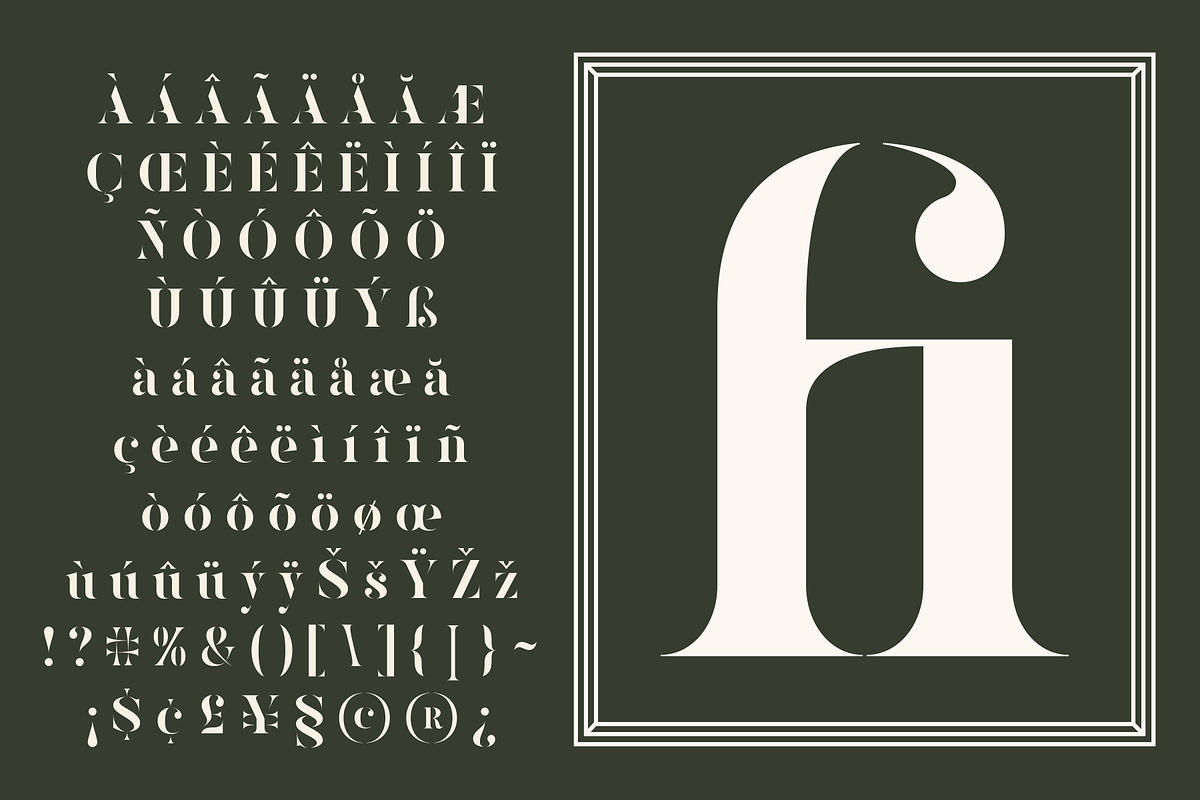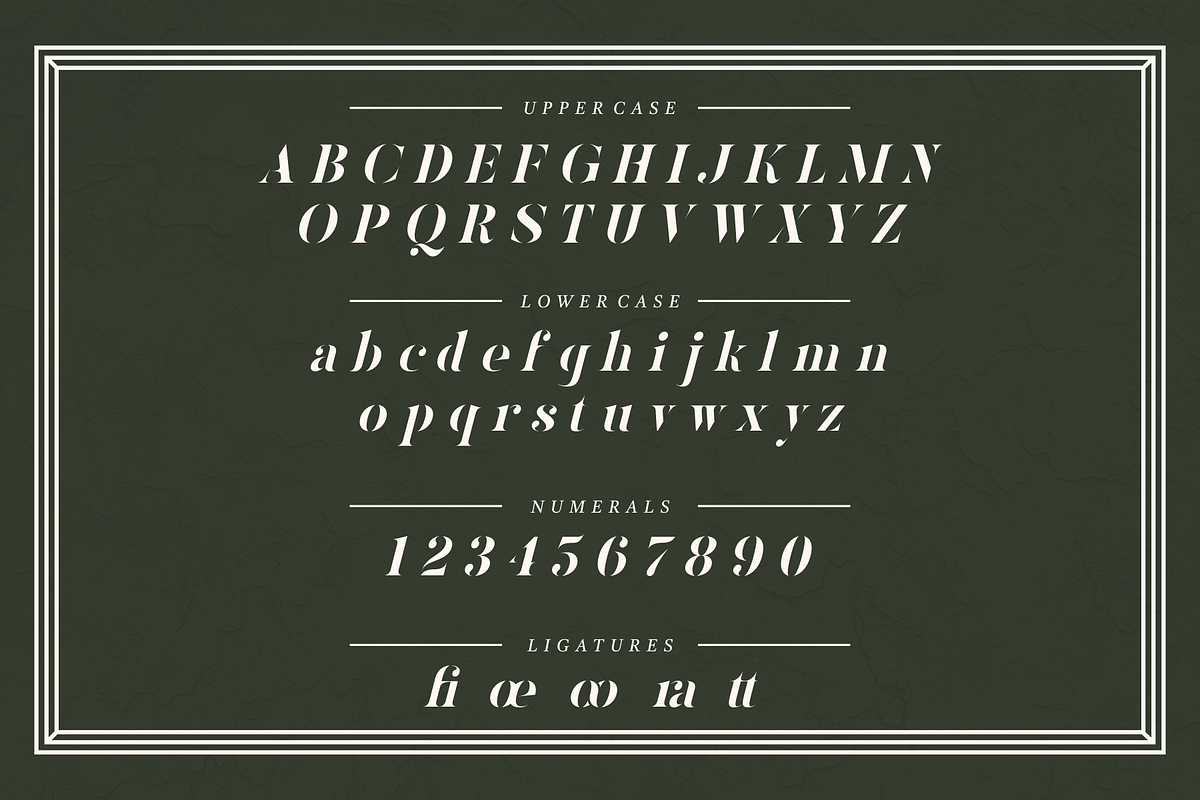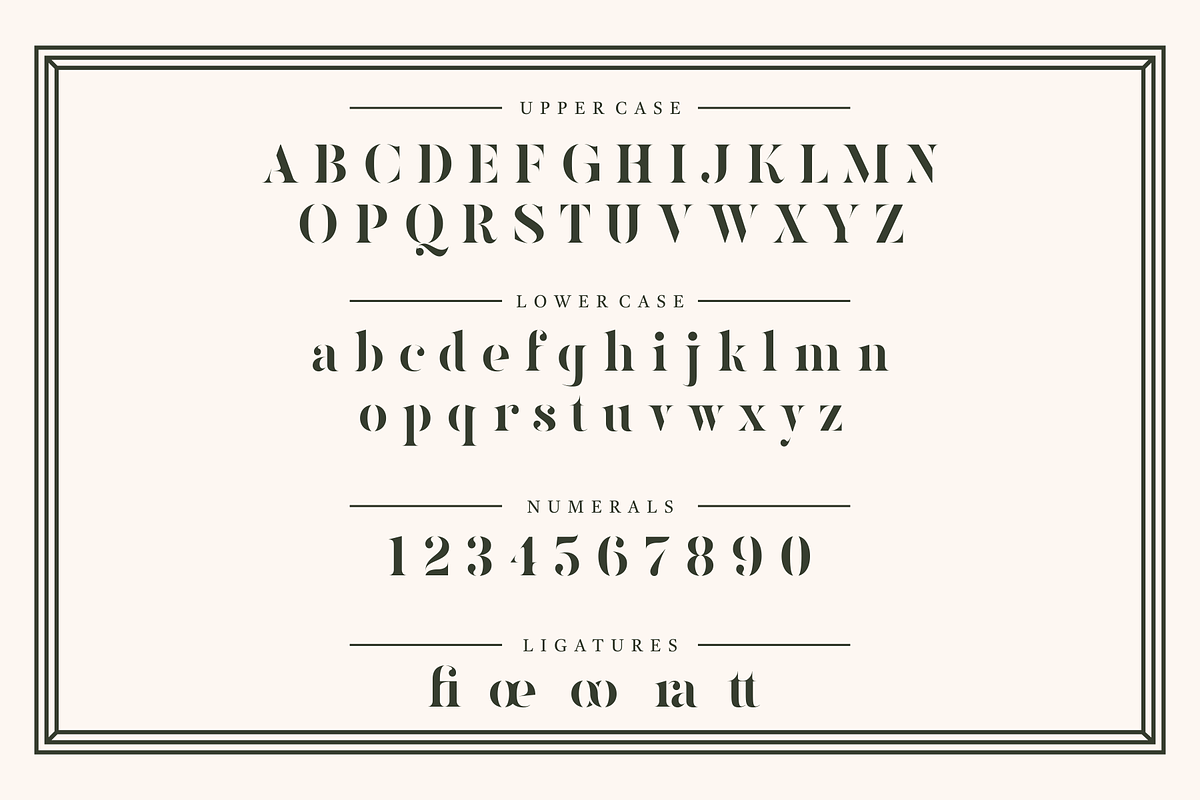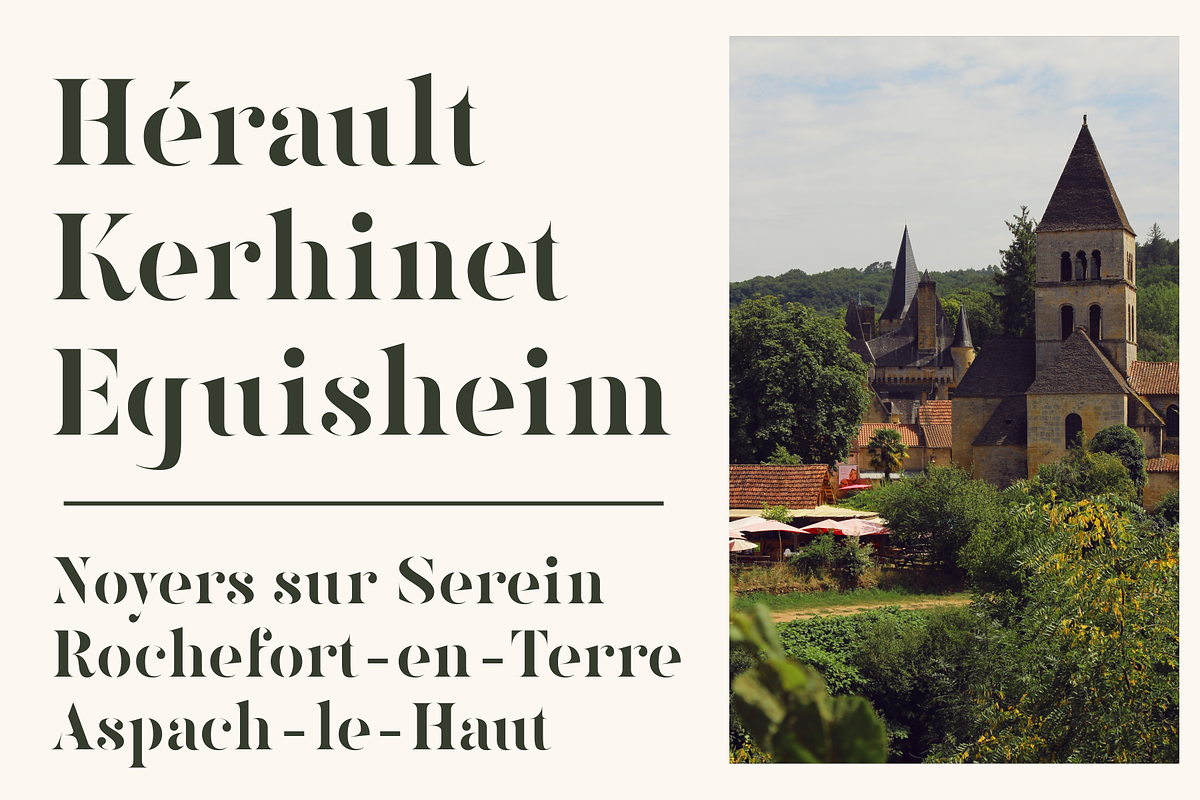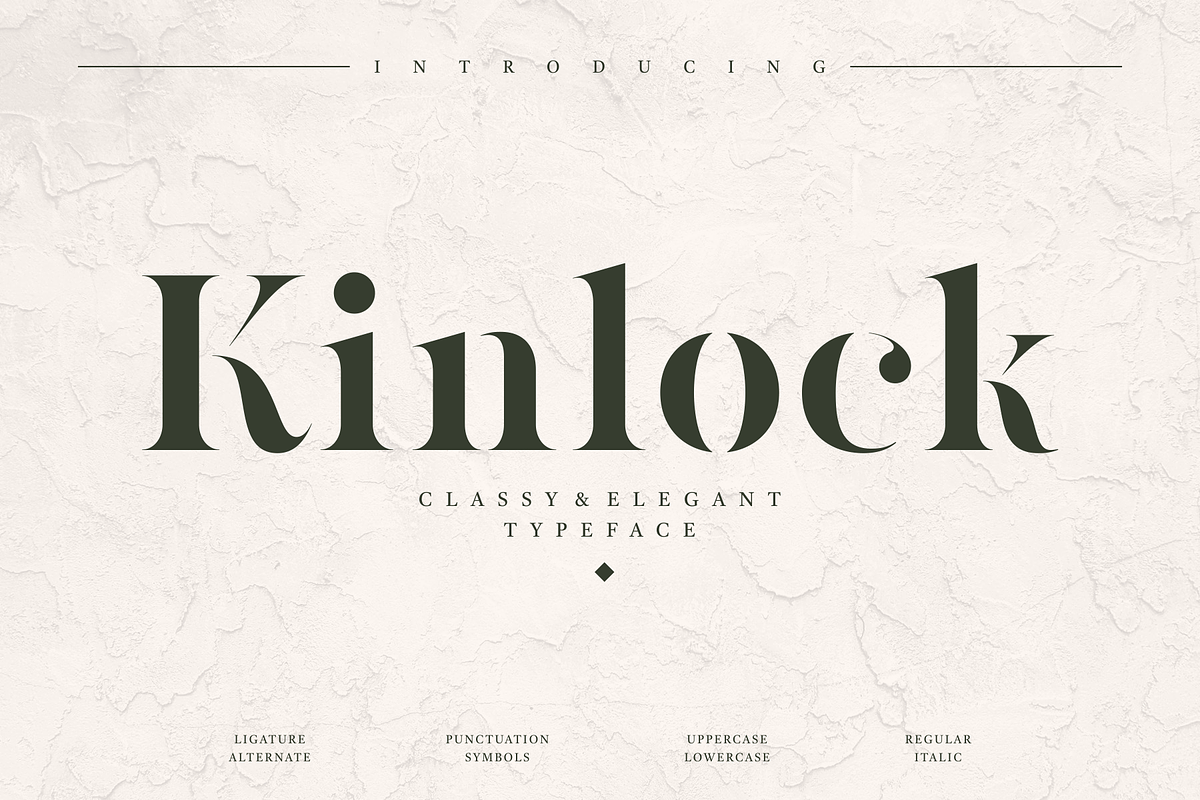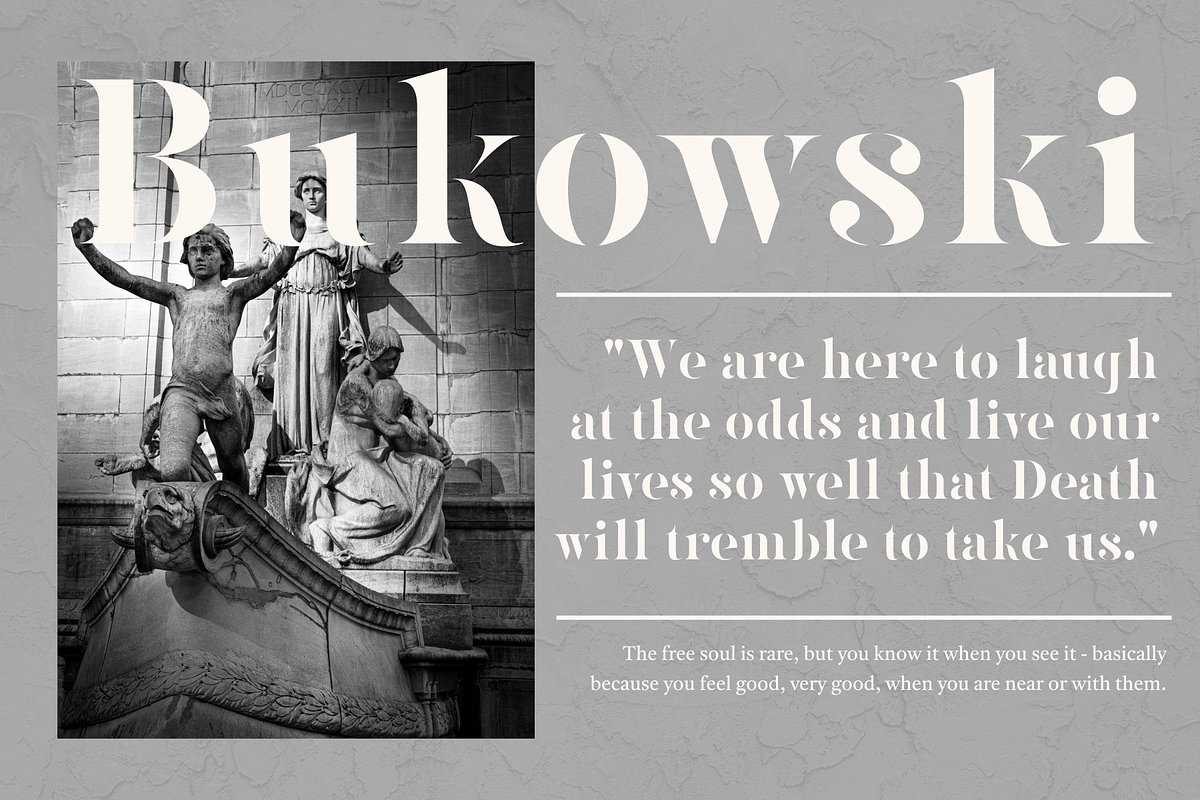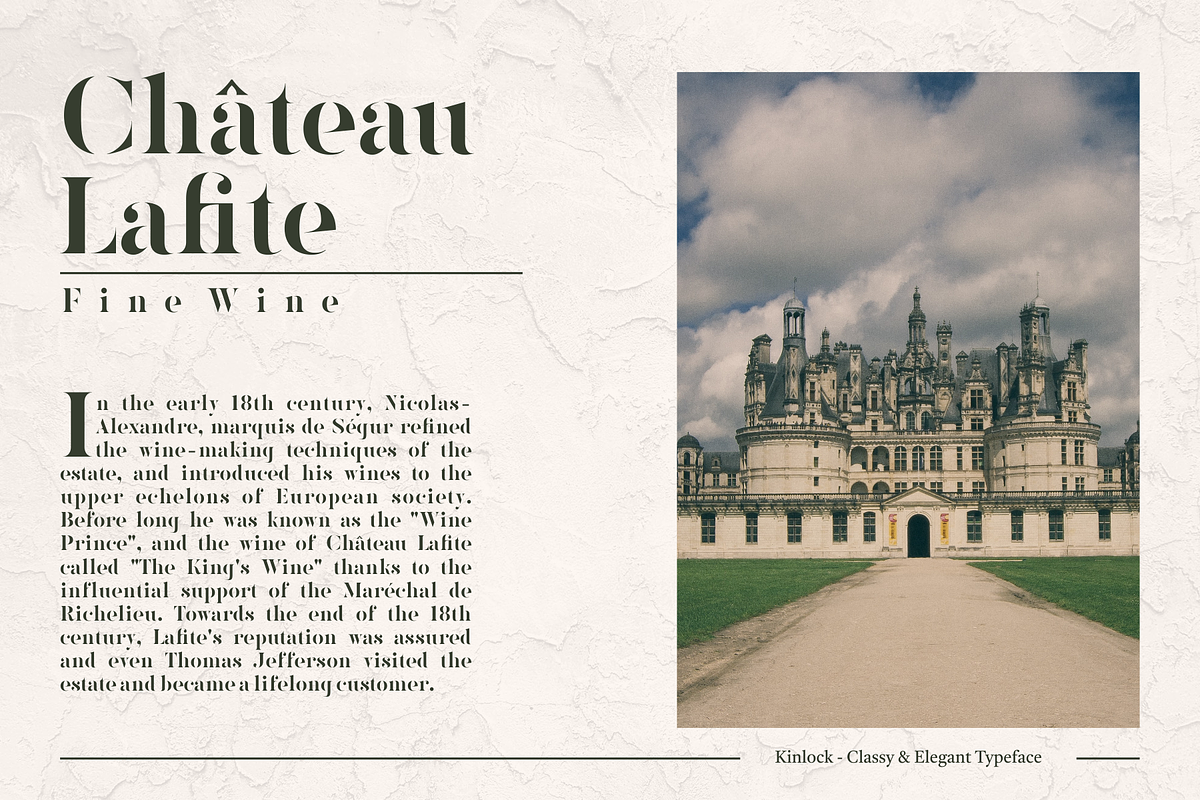
Kinlock - Elegant Stencil Serif
Kinlock is a new elegant stencil serif font featuring a regular & italic version.
Its luxurious lines will work perfectly for any sophisticated design project. Perfect for luxury product packaging, labels, branding, advertising & much more.
Kinlock includes all standard glyphs plus a few essential ligatures as well as multilingual characters.